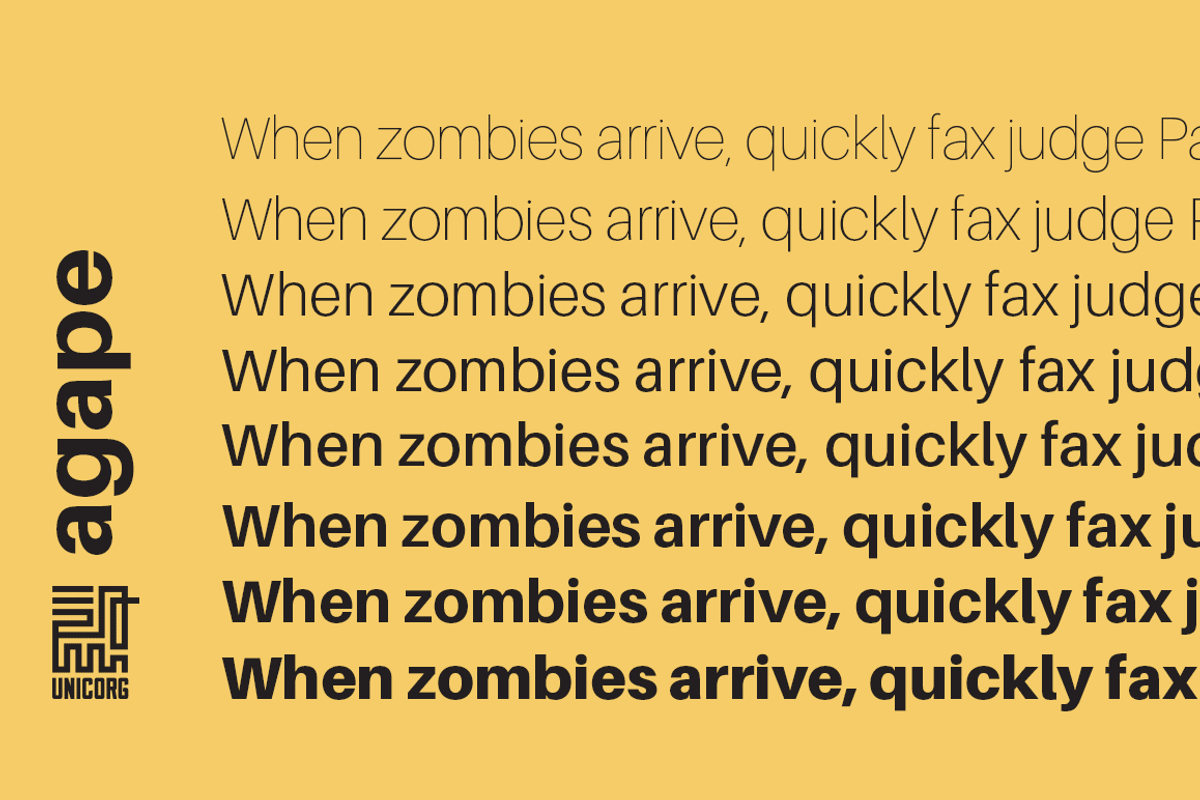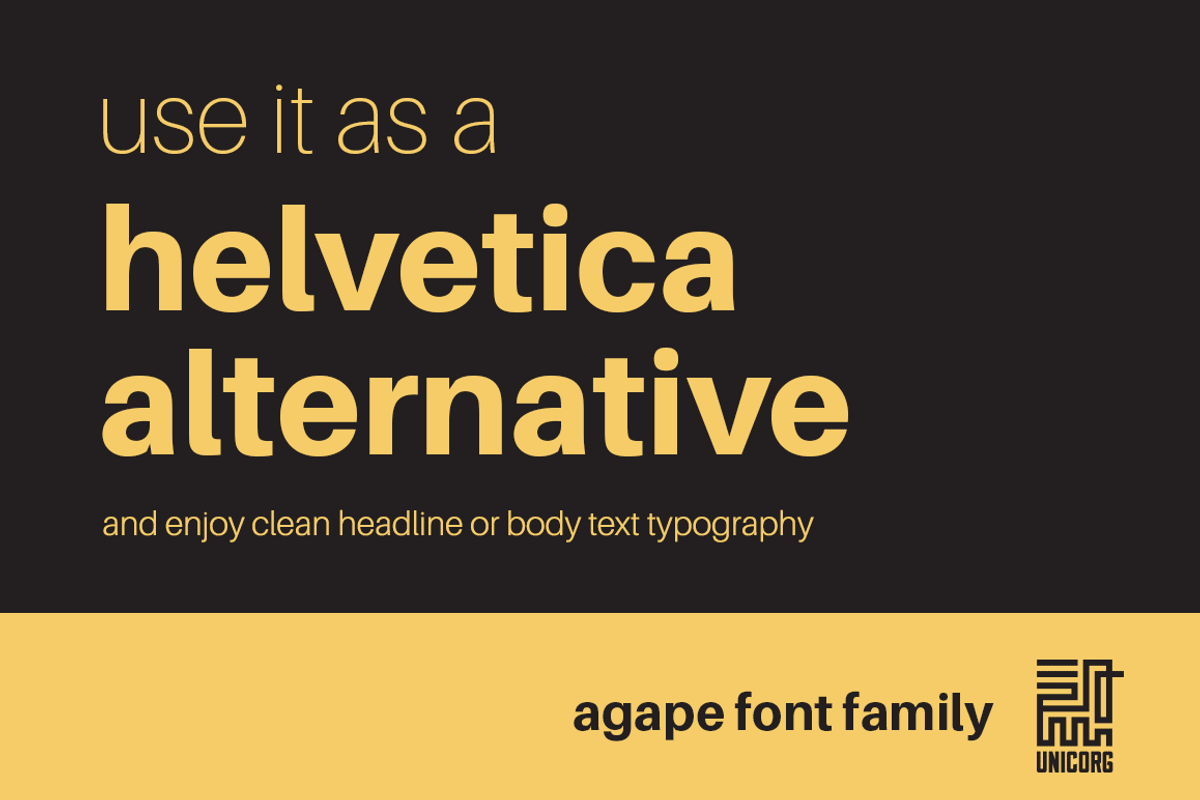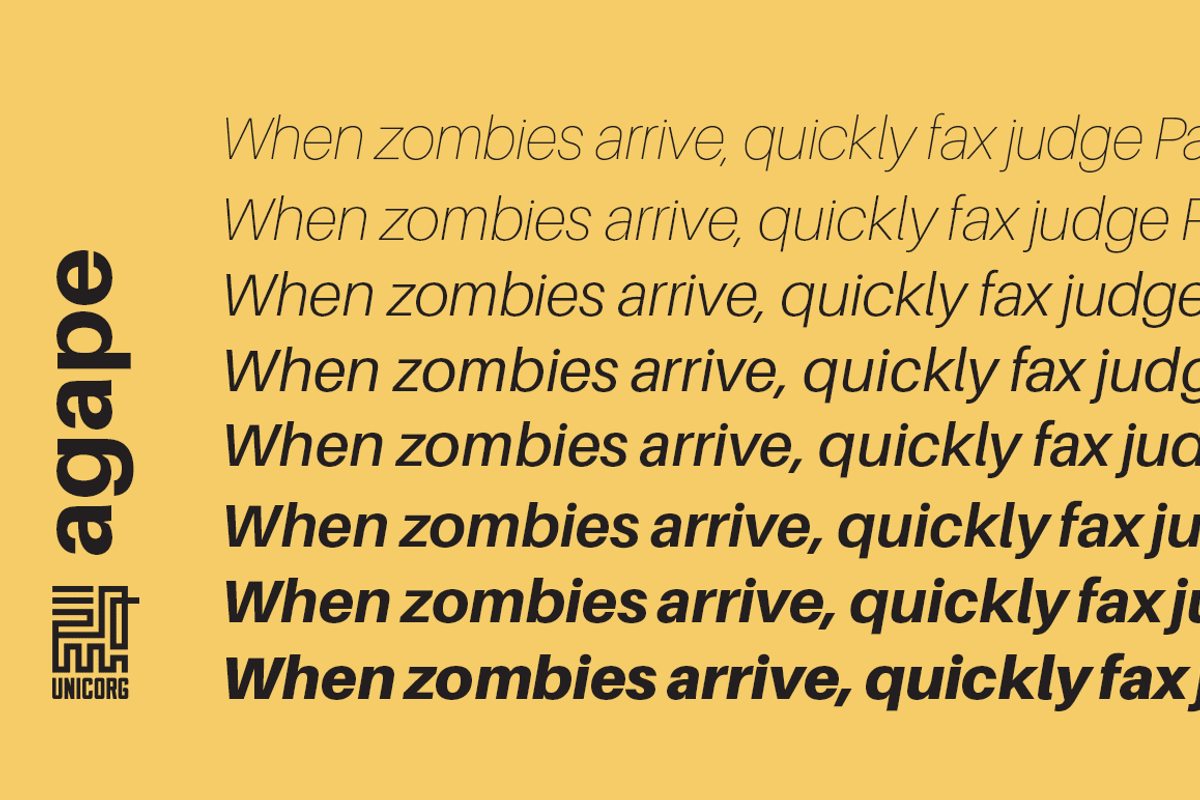
Agape Font Family
Agape Font Family by Elegrad Design Agency is a font selected for branding, posters, packaging, typography.
- INCLUDES LIGATURES & SUPPORT FOR GERMAN/SCANDINAVIAN CHARACTERS It is available in 8 weight variations, from Black to UltraLight.
Why Agape Font Family is worth a look
Agape Font Family by Elegrad Design Agency fits naturally into Branding, posters, packaging, typography.